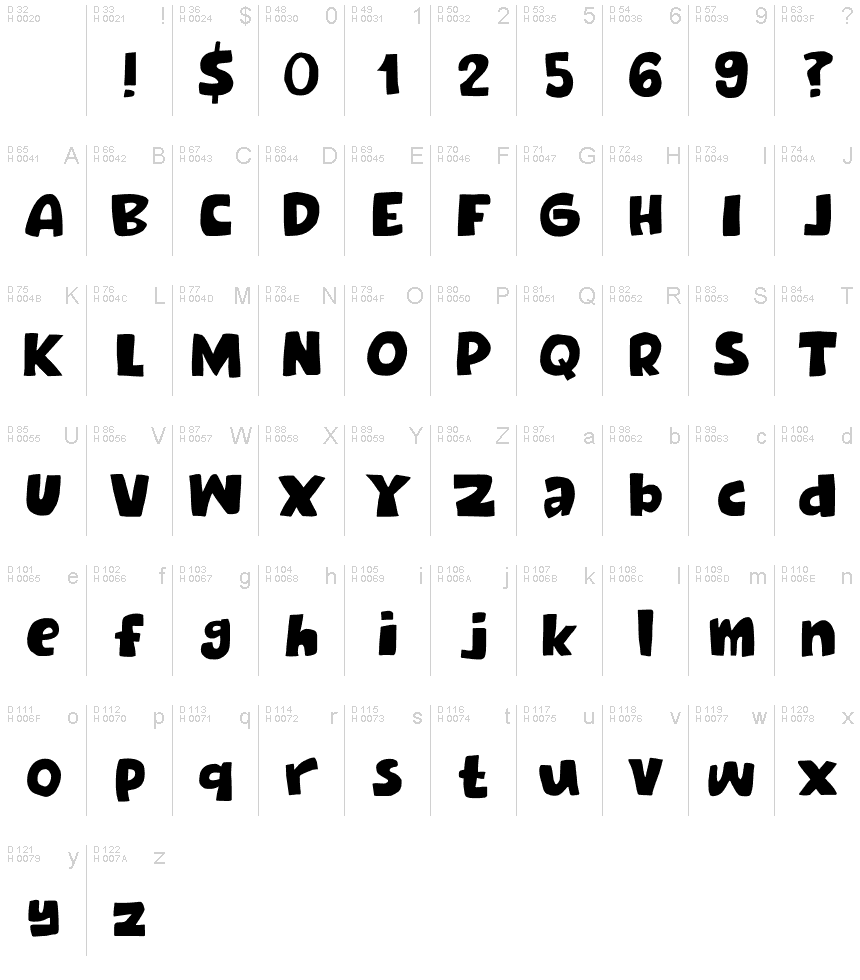
Off Yer Trolley DEMO Regular
Off Yer Trolley, designed by Hanoded, is a standout display font that captures the whimsical and playful spirit of cartoon aesthetics. Its extra-bold weight commands attention, making it an ideal choice for when you want your message to pop with personality. With chunky characters that seem to dance with joy, this font is a visual feast that brings an element of fun to any project.
The robust lines and slightly irregular contours give Off Yer Trolley a handcrafted look, perfect for designs that aim to be lighthearted and engaging. Whether it's for eye-catching headlines, vibrant logos, or energetic marketing materials, this font exudes charm and character.
With its ability to set a tone that's both friendly and impactful, Off Yer Trolley offers designers the perfect tool for crafting messages that need to be both inviting and bold. Its playful nature makes it especially suited for projects targeting younger audiences or those looking for a touch of humor and creativity in their branding.